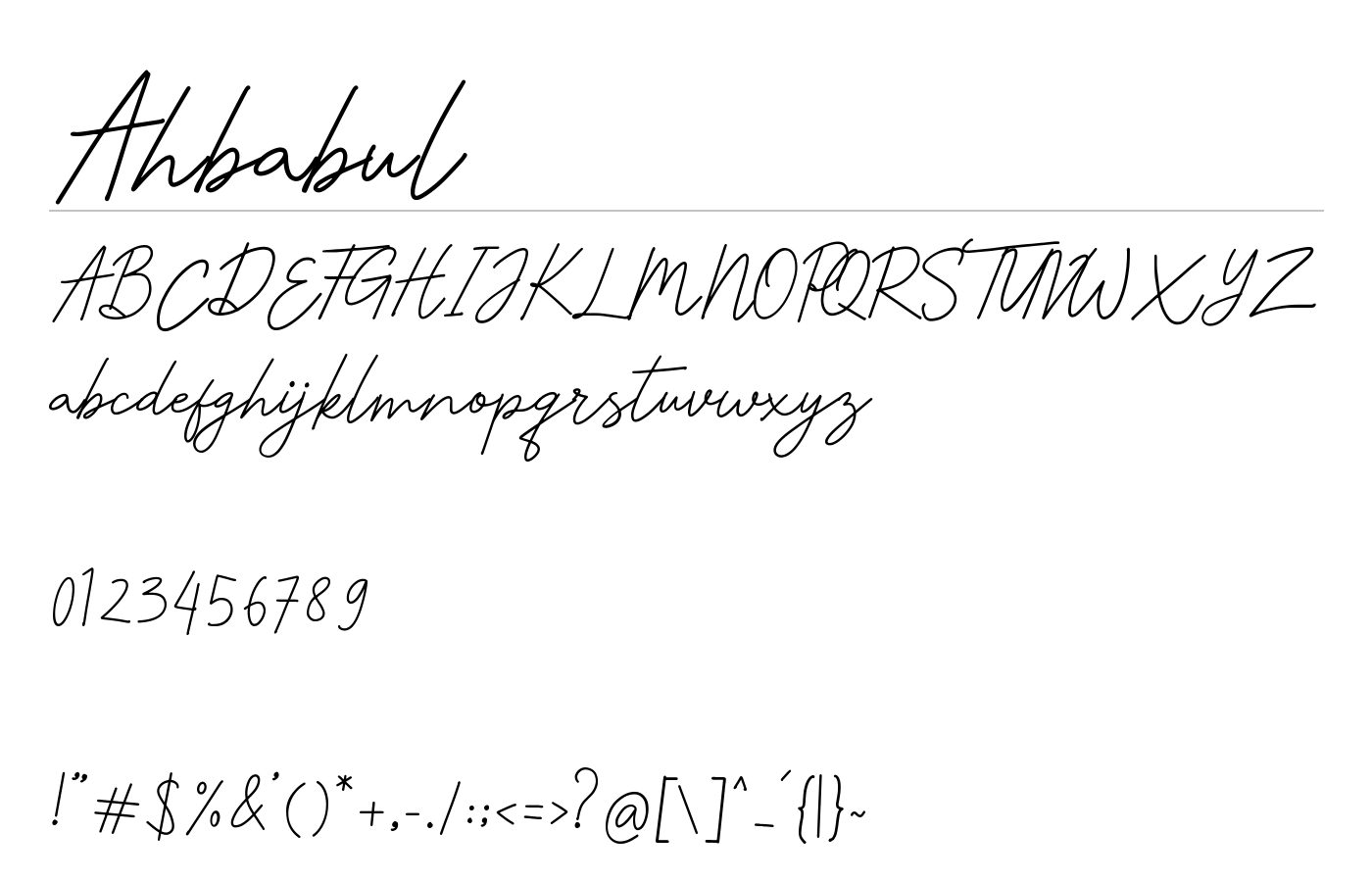
Ahbabul is a delicate and elegant handwritten script font with a light weight and tall, narrow letterforms that give it a graceful and airy feel. Its smooth, flowing strokes and slightly irregular lines create a personal, approachable style perfect for branding, invitations, or creative projects that seek a touch of sophistication and warmth. This font works well in headlines or display uses where a casual yet refined look is desired.
Ahbabul Font
About Ahbabul Font
| Font family | Ahbabul Font |
| Designer | Siti Malikhatin |